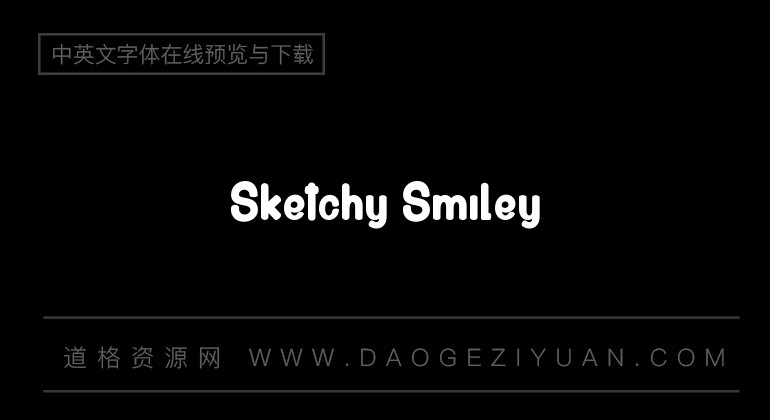
Sketchy Smiley
Sketchy Smiley is a hand-drawn style font, letters and symbols are handwritten with a pencil or pen, it looks very fun and cute. This typeface is often used to design children-related products or events, such as children’s books, toys, party invitations, etc. Its hand-painted style makes people feel kind and warm, in line with the innocent and lovely image of children. The letters and symbols of the Sketchy Smiley font are rounded, with thicker lines and some rough edges and deformations, creating a hand-painted feel. The color of the entire font is relatively bright, which is more suitable for color design. All in all, Sketchy Smiley is a really fun and cute font to use in kid-related design projects.
Sketchy Smiley is a very good handwriting art font, with a good visual sense, suitable for cultural propaganda design, commercial brand advertising and product packaging design and personalized text typesetting and other more scenes.